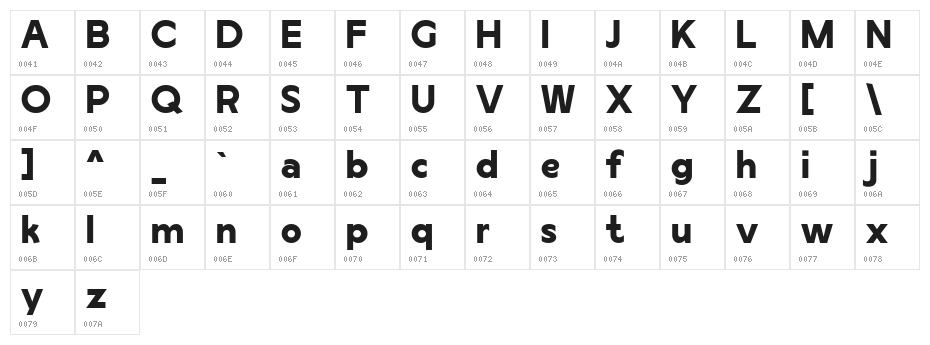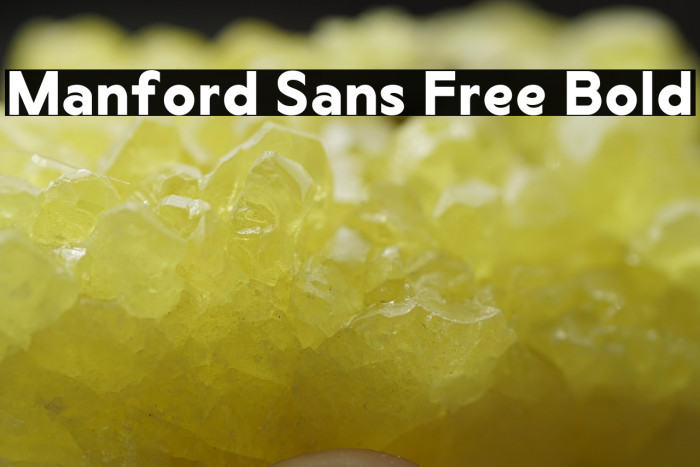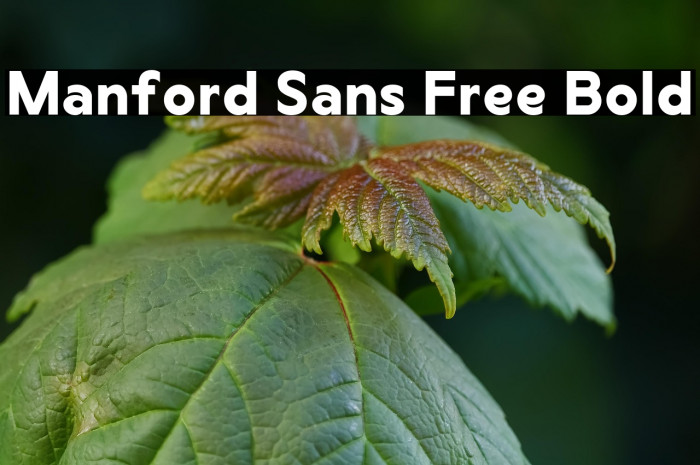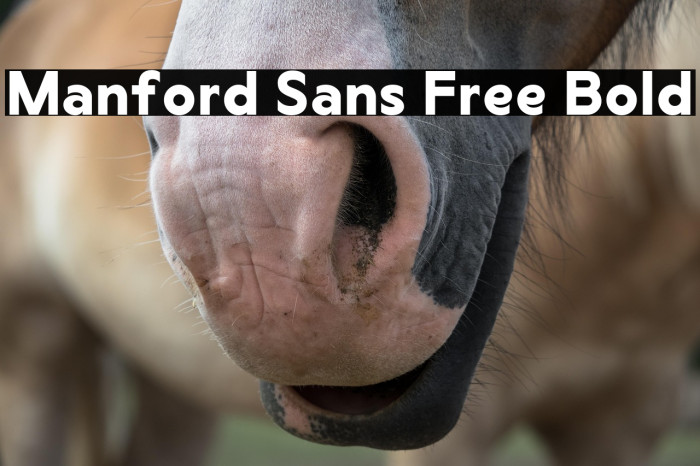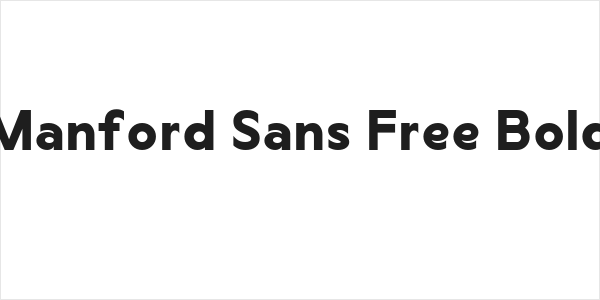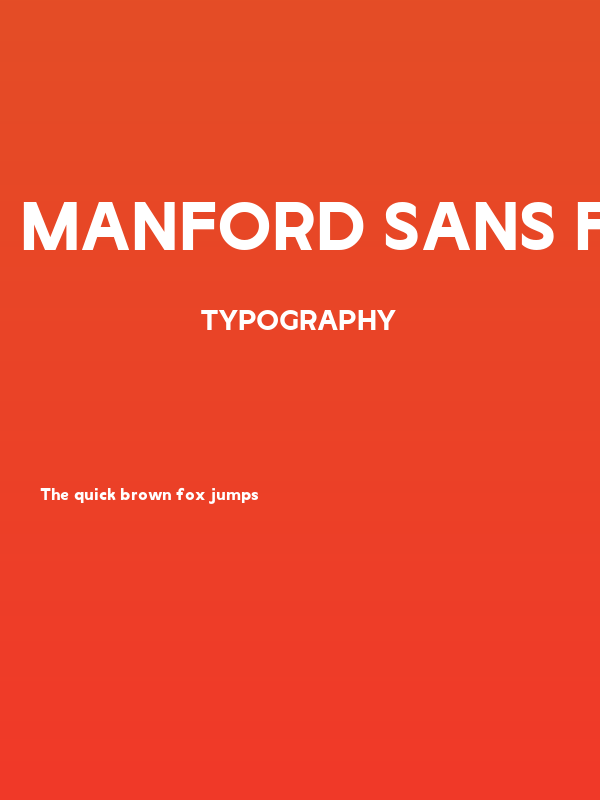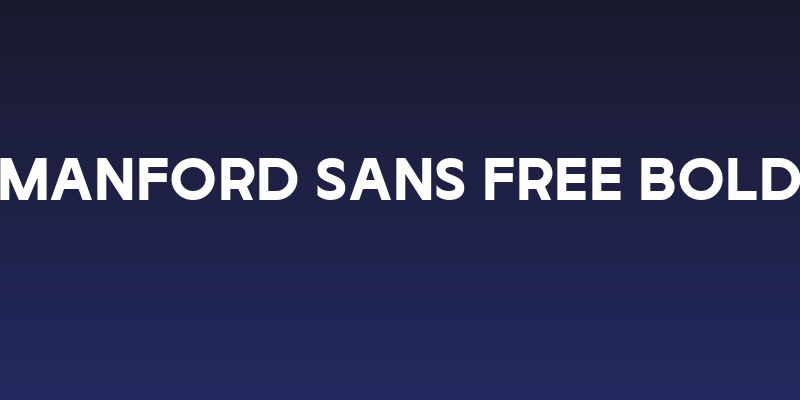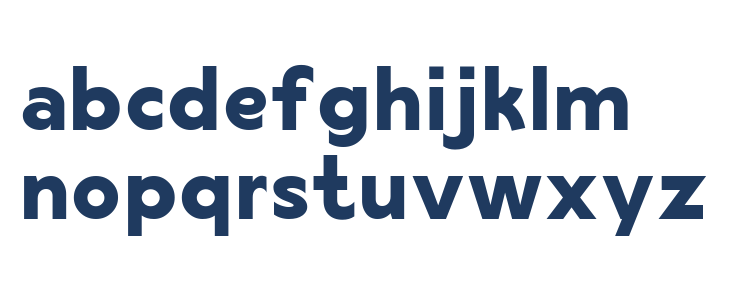
Manford Sans Free Bold Font
Manford Sans Free Bold Description
This typeface features a bold, clean design with a modern sans-serif style. The characters are uniformly thick, providing a strong and assertive appearance. The uppercase and lowercase letters are well-proportioned, with a consistent stroke width that enhances readability. The font's geometric structure gives it a contemporary feel, making it suitable for various design applications. The numbers and special characters maintain the same boldness, ensuring a cohesive look across all text elements.
| Proposed Projects | Ideal for branding, advertising, headlines, and digital media where a strong, modern presence is desired. |